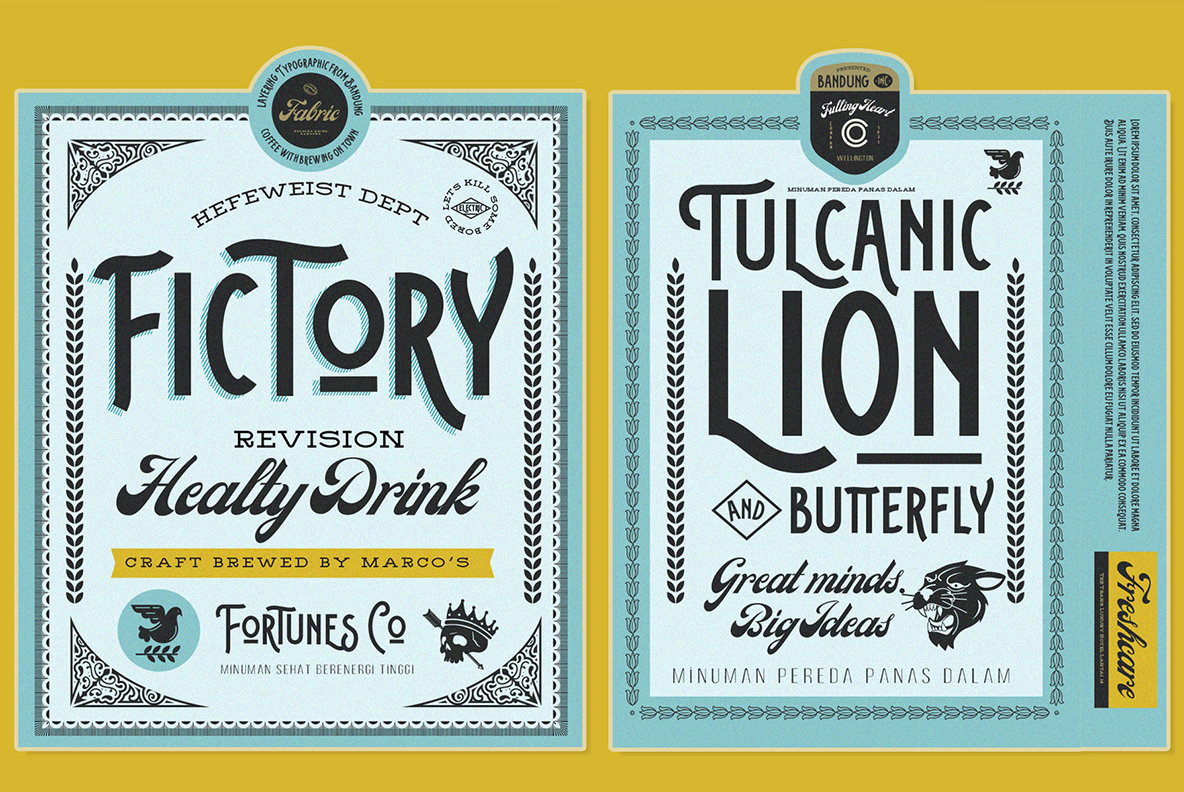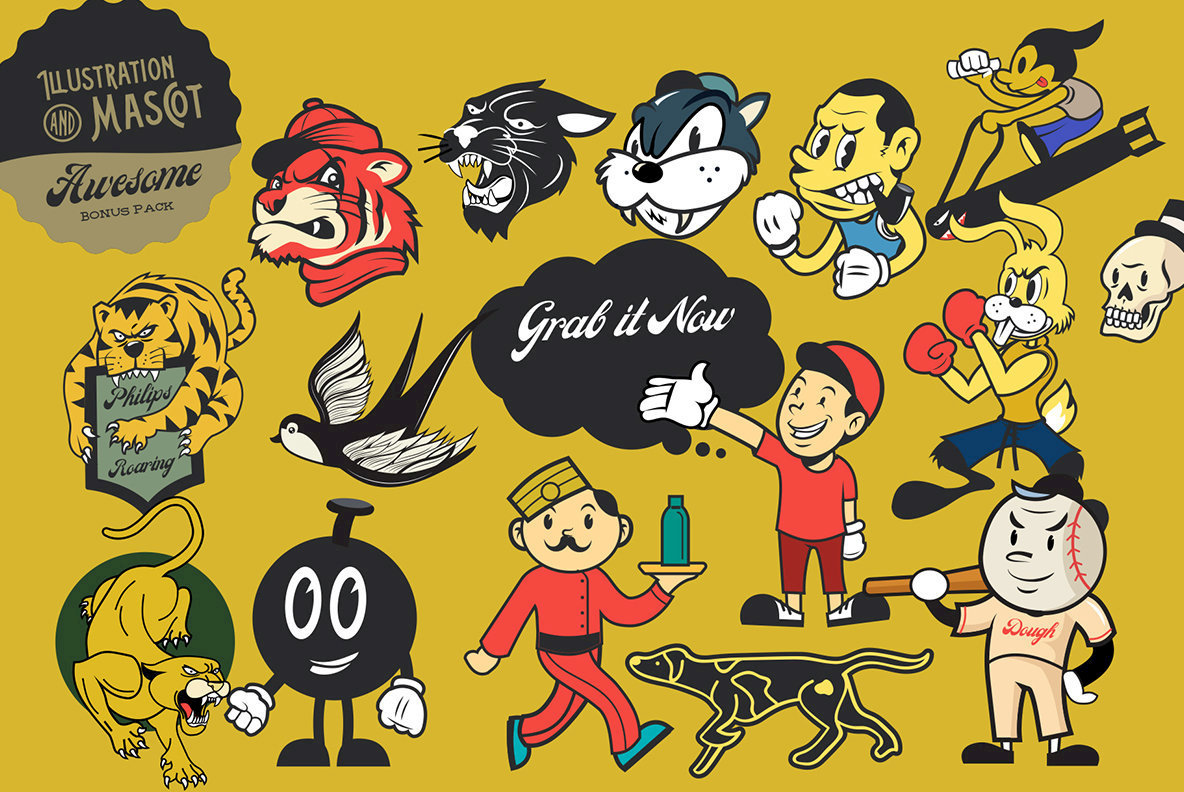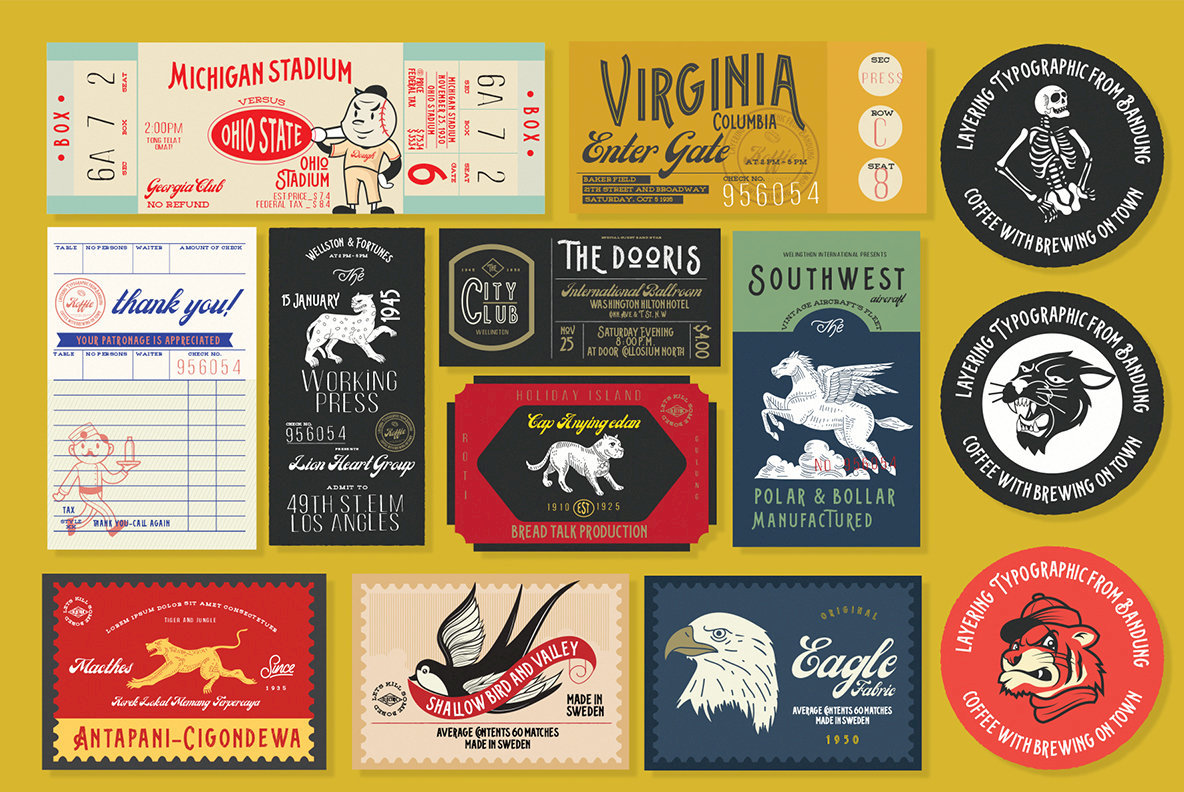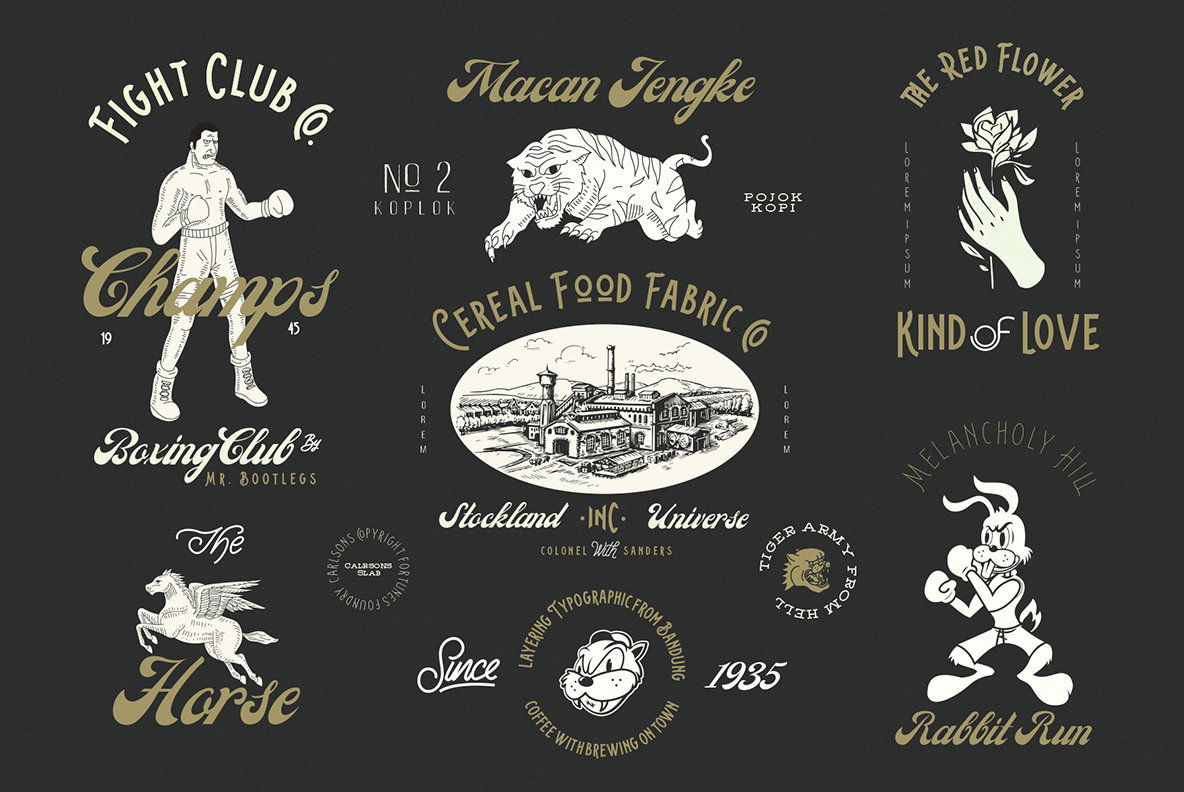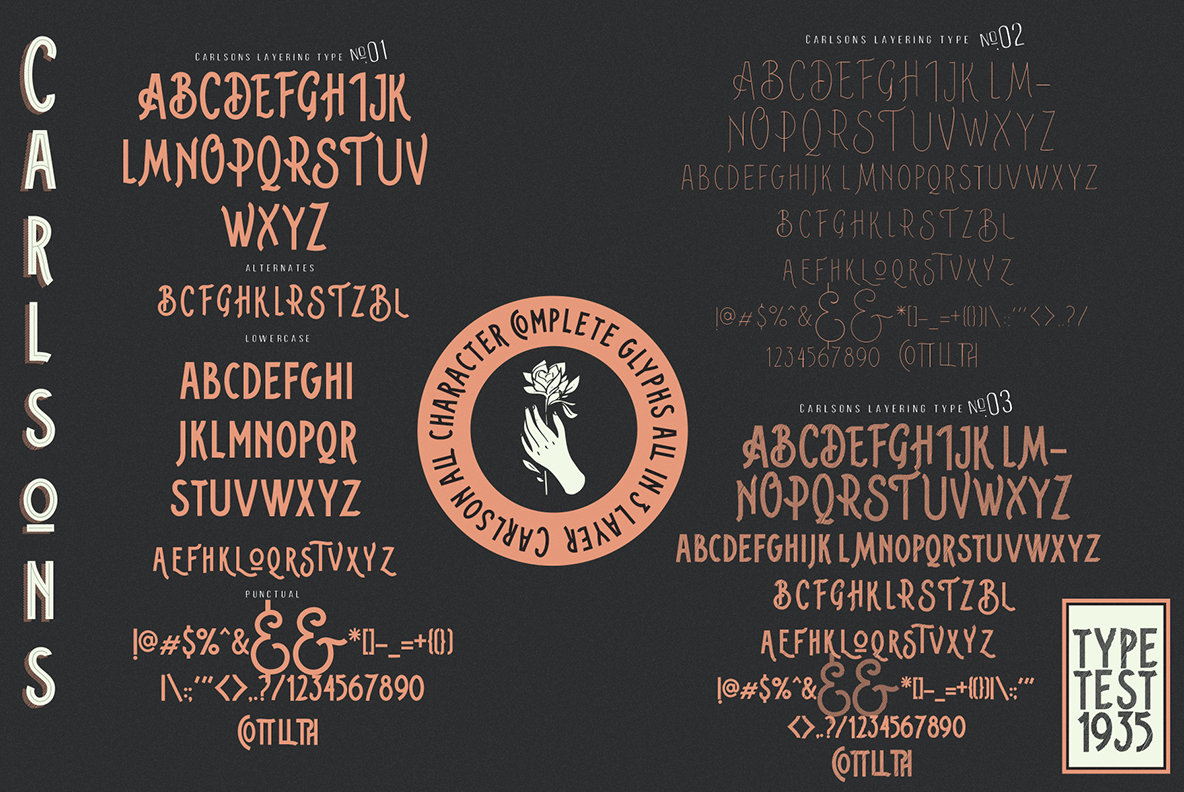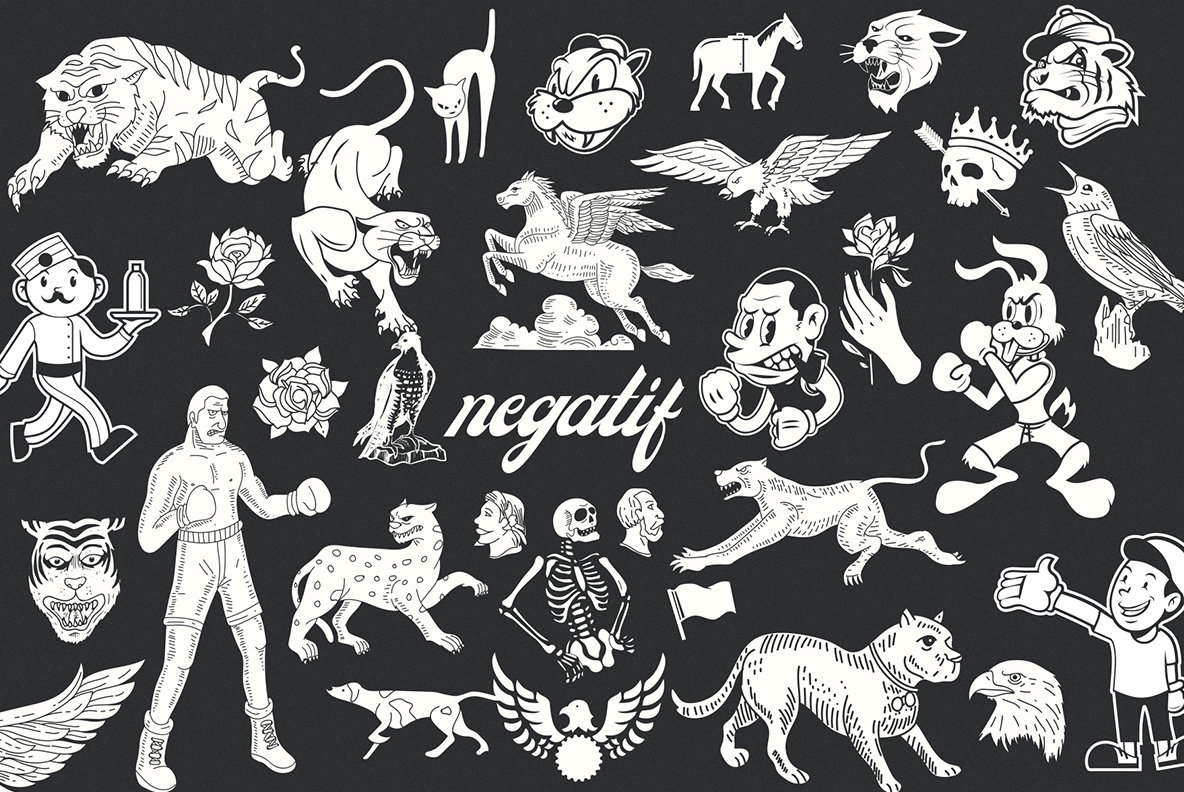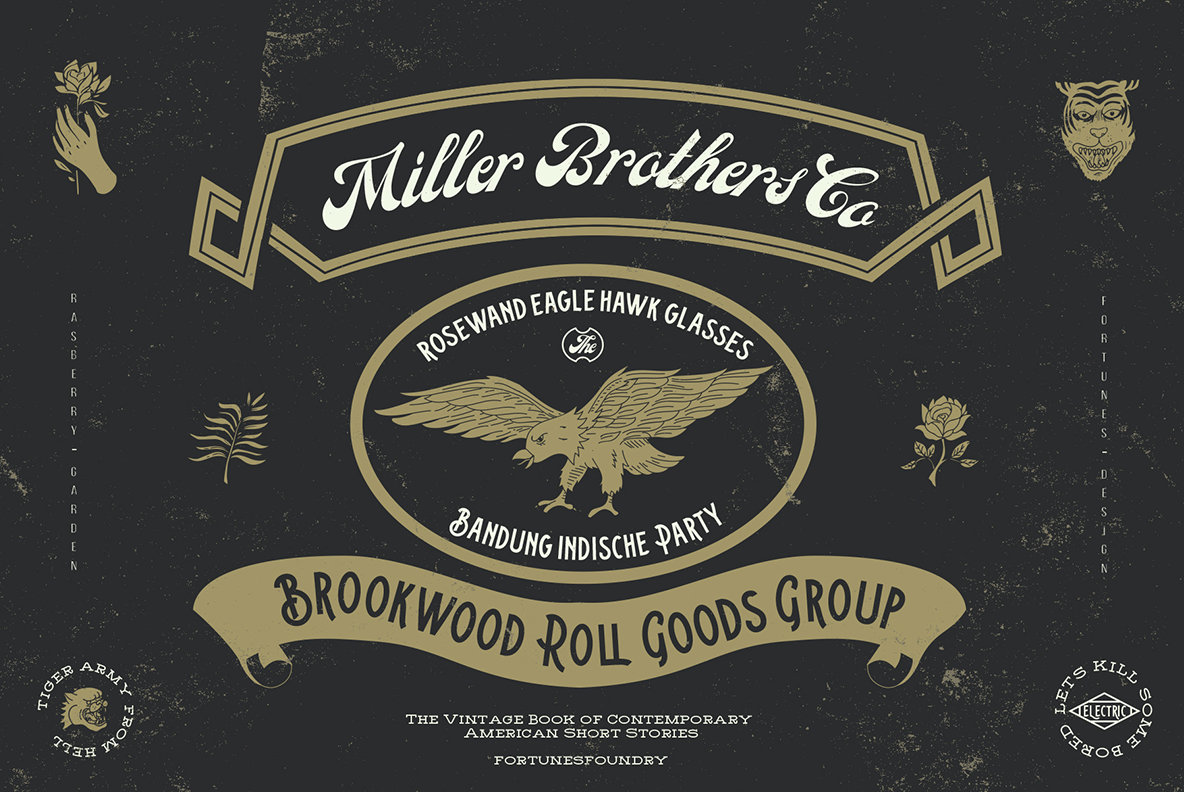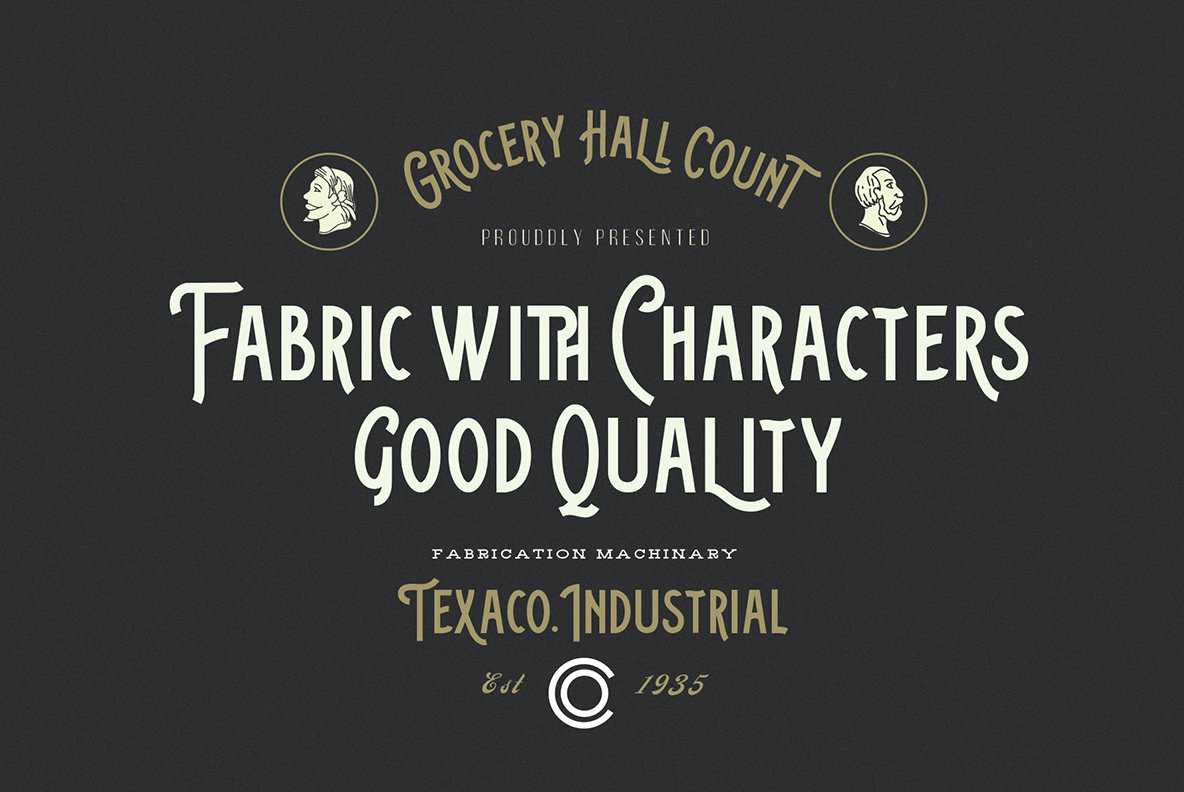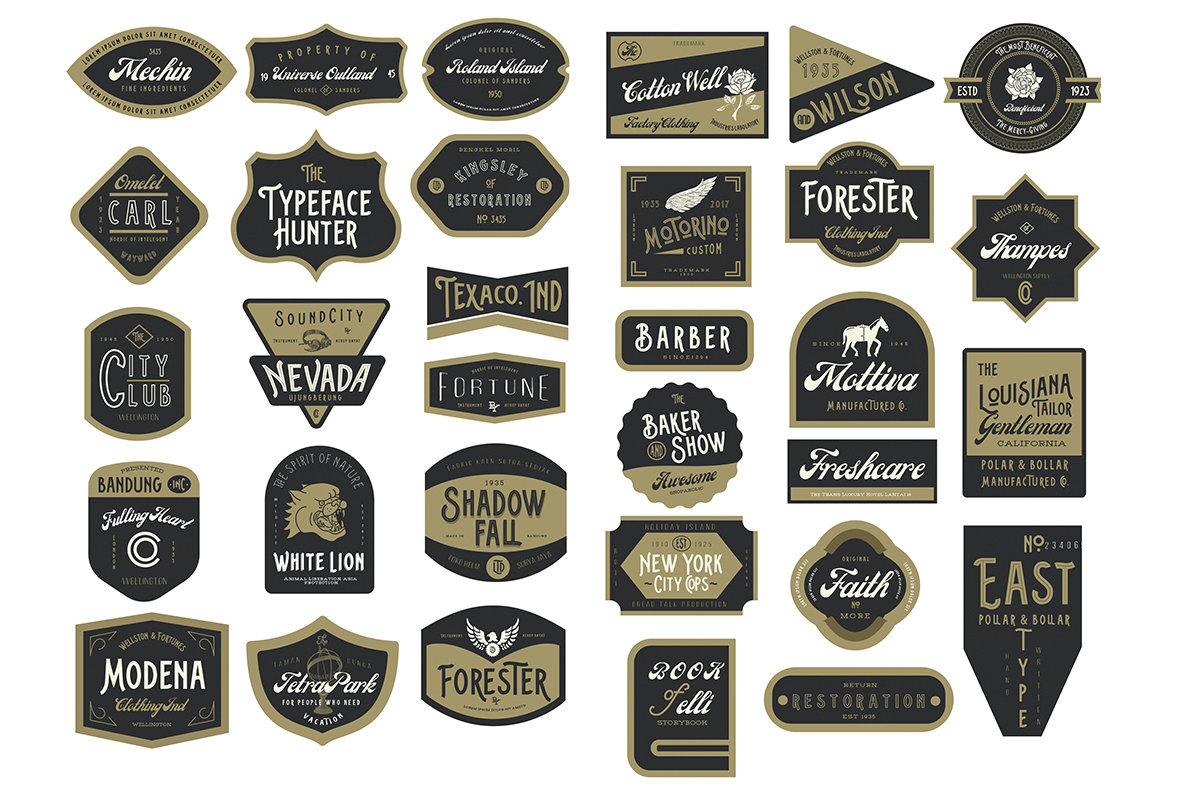
Carlsons Font
Rooted in classic vintage inspiration, the Carlsons Typeface Family, designed by Ramandhani Nugraha, is a collection of ten distinct fonts. This comprehensive family includes seven font styles and features three layering typefaces. It further embraces diversity with condensed, slab, and vintage script versions. Perfectly complemented by a suite of 39 badges, over 55 illustrations, and 56 catchwords, Carlsons makes an exquisite choice for various design applications. Carlsons is crafted for dynamic visual works, including posters, logos, magazine prints, and more. Its versatility provides an eye-pleasing touch to branding, packaging, and typographic designs.Carlsons Typeface Family: Versatile Vintage Charm